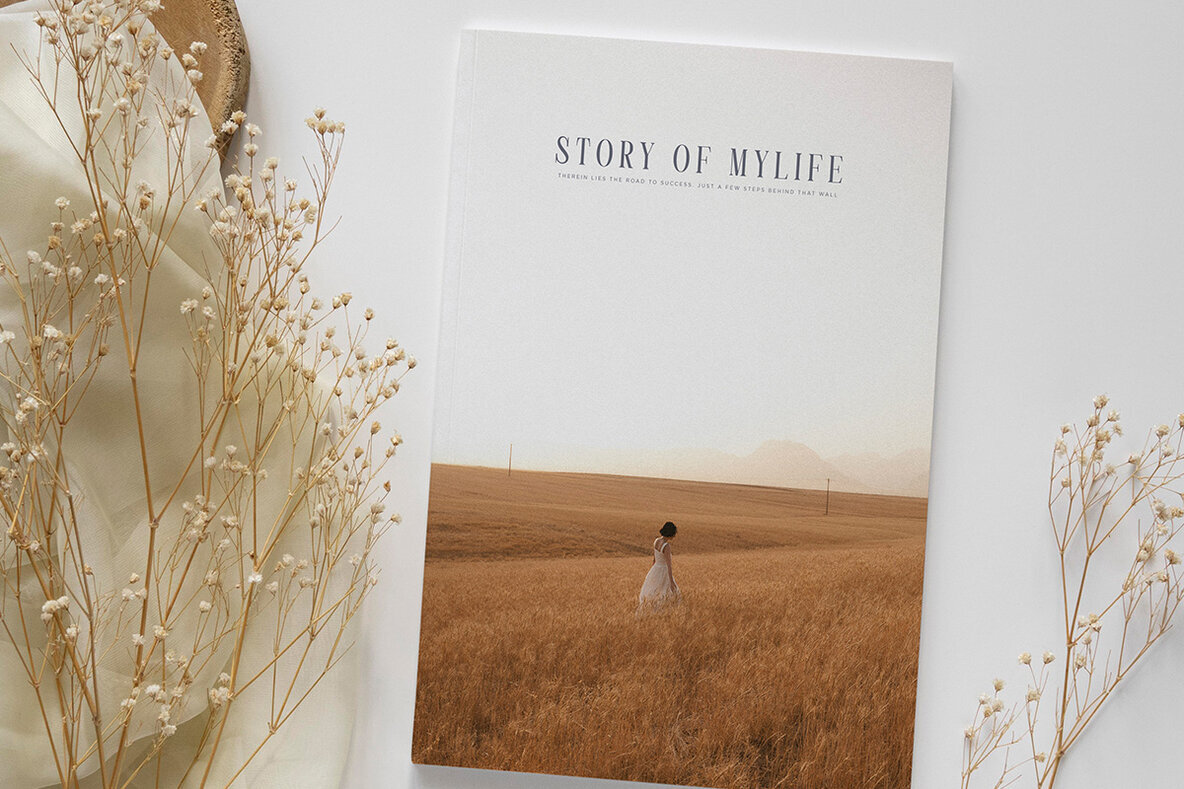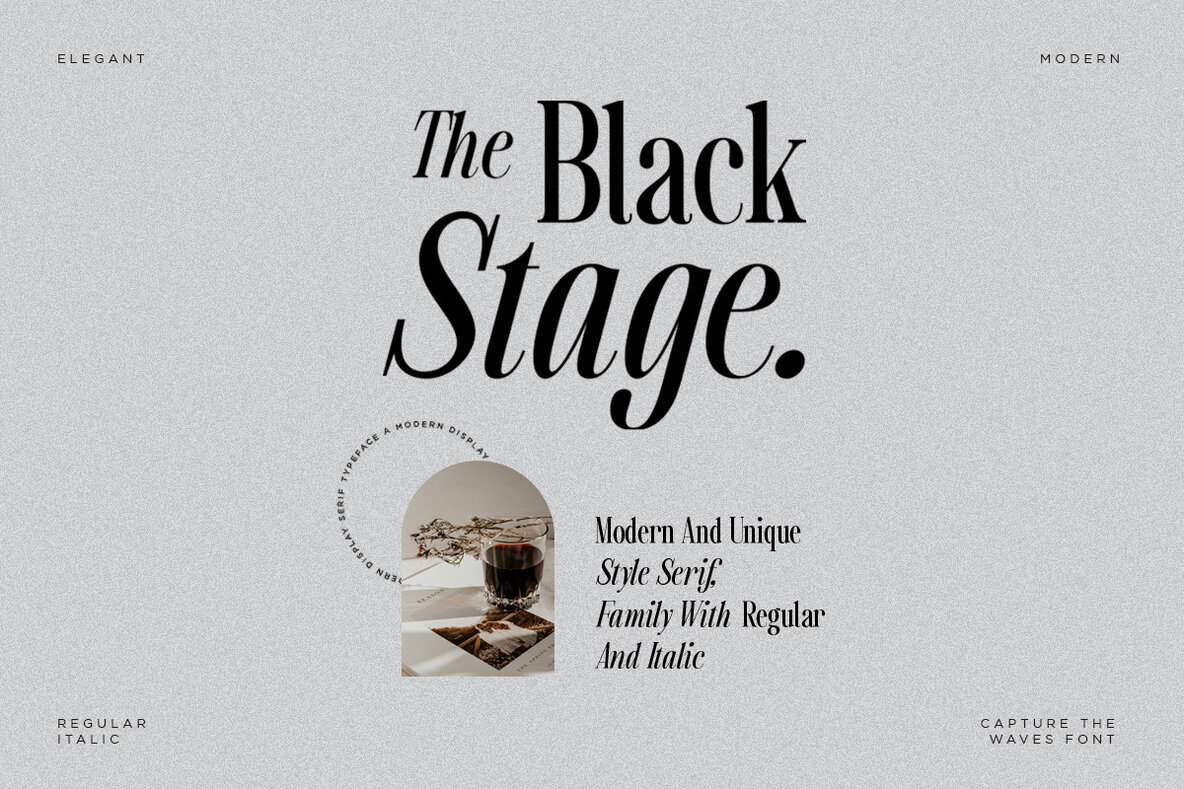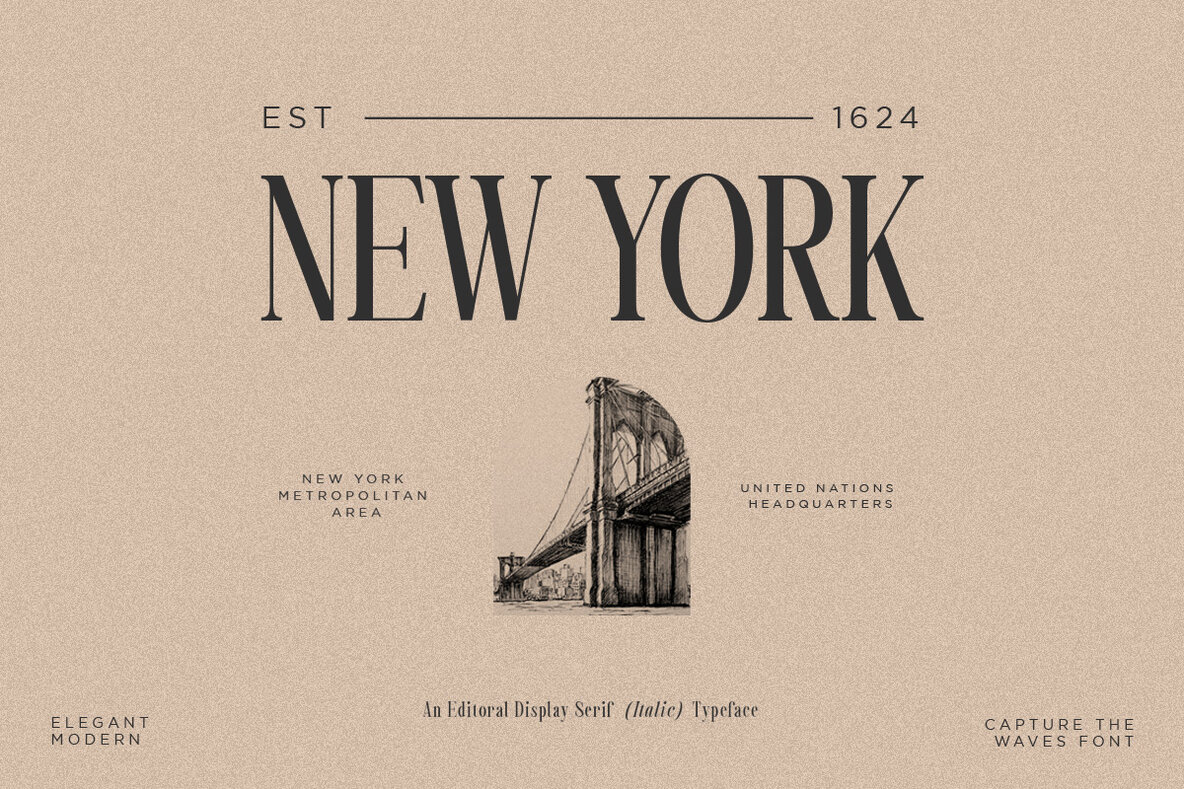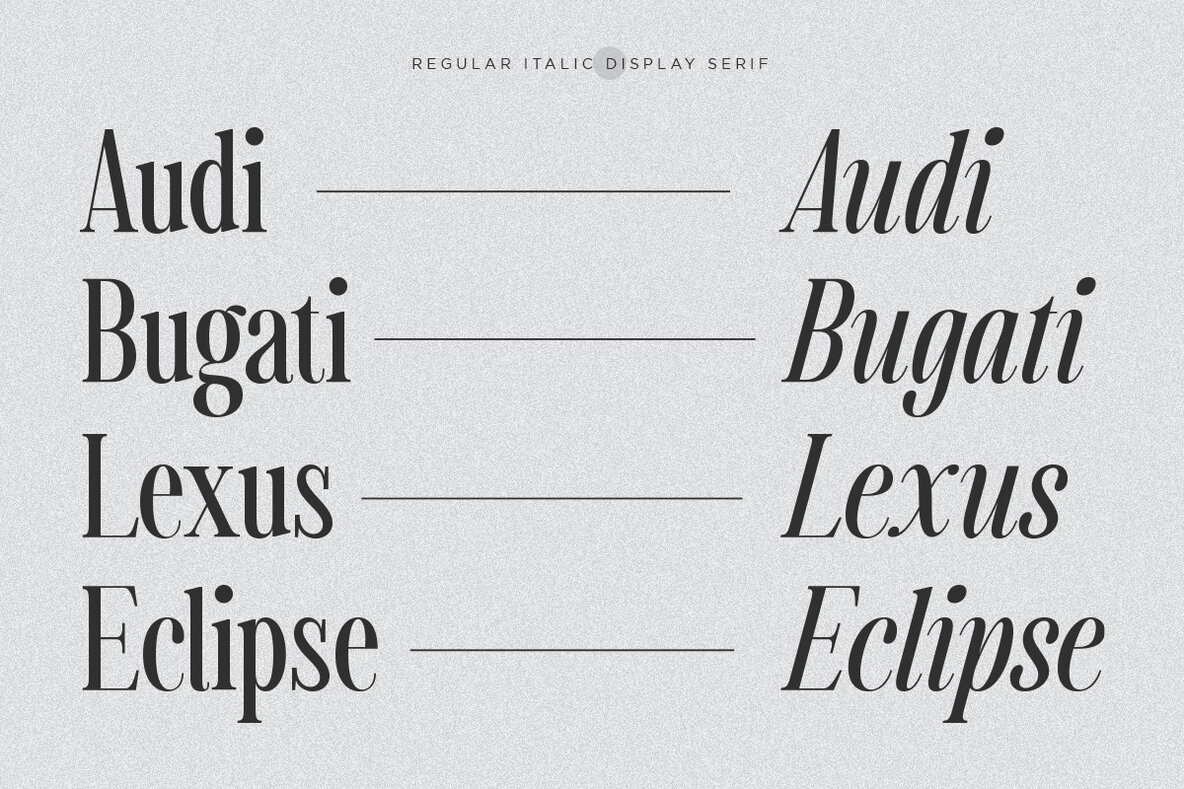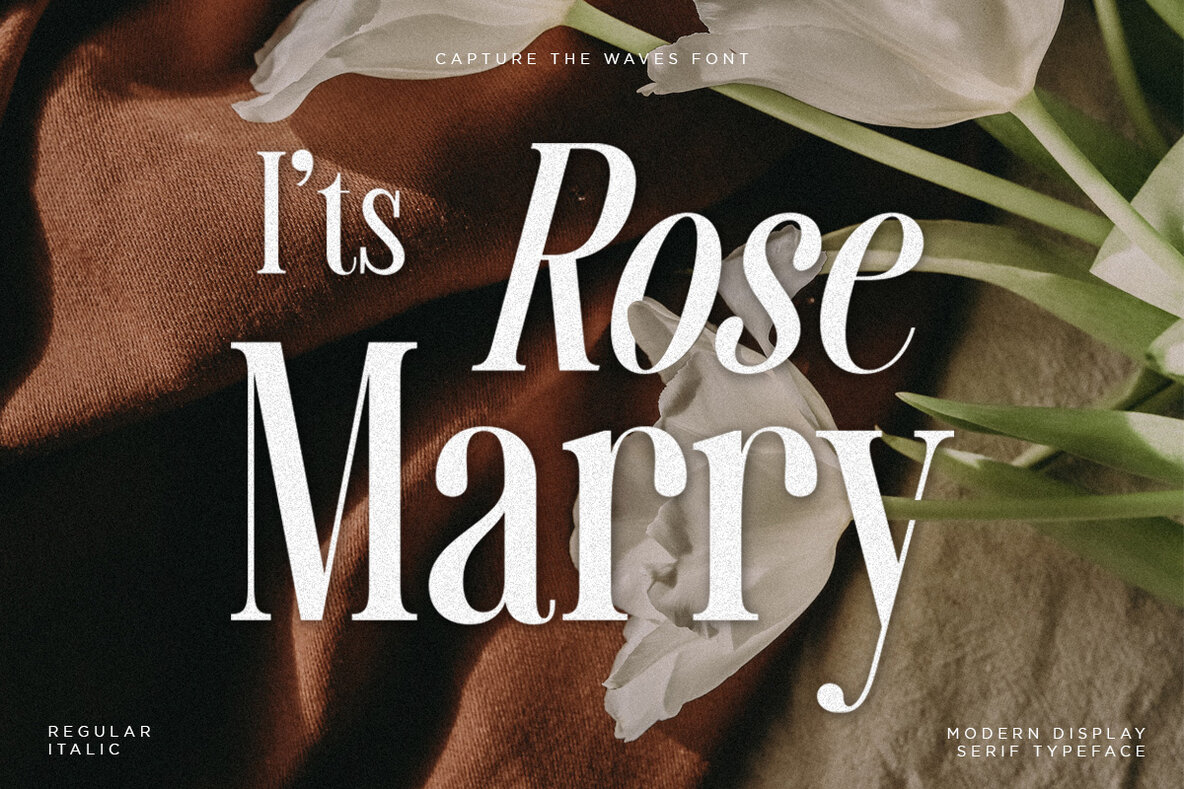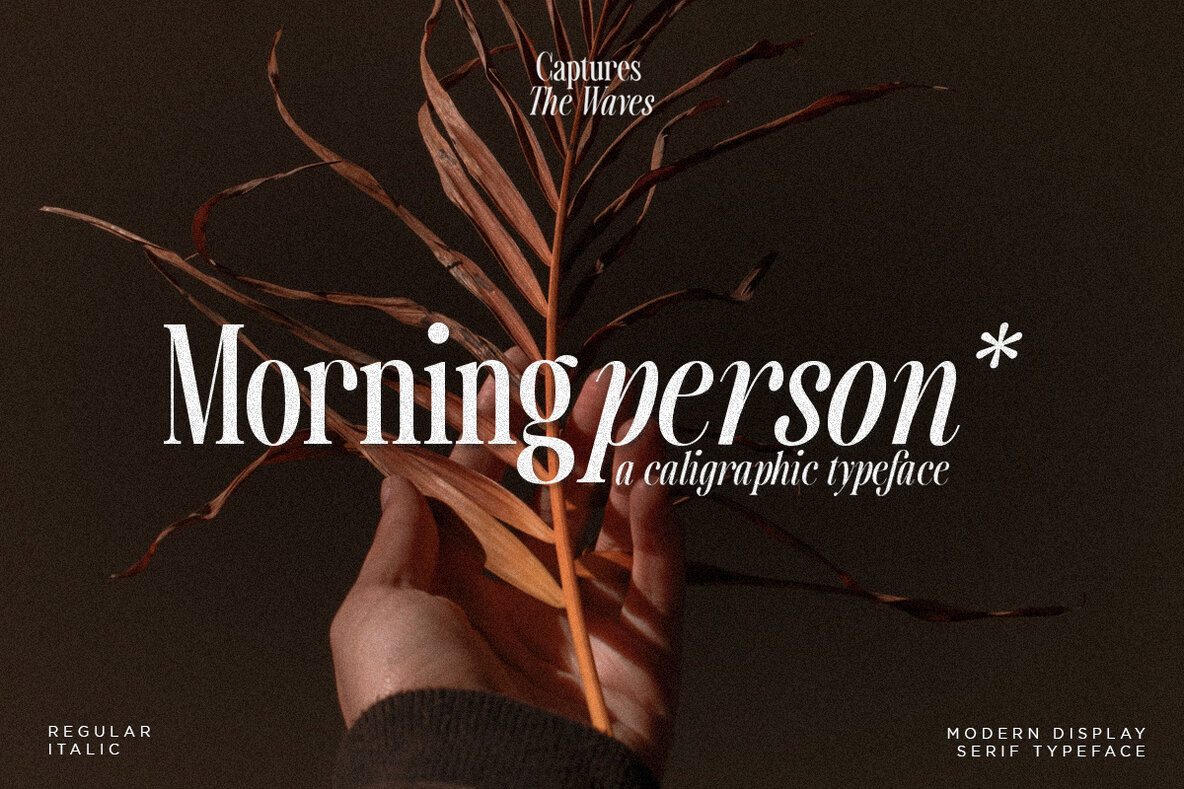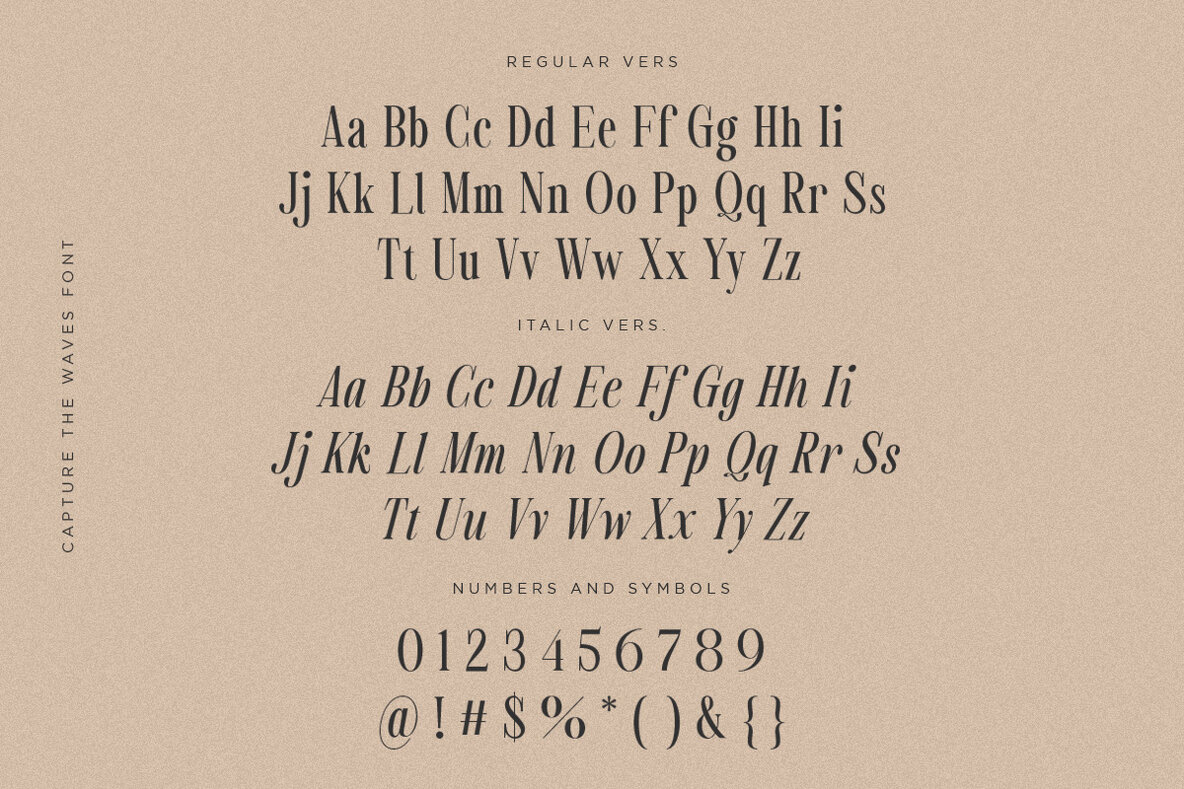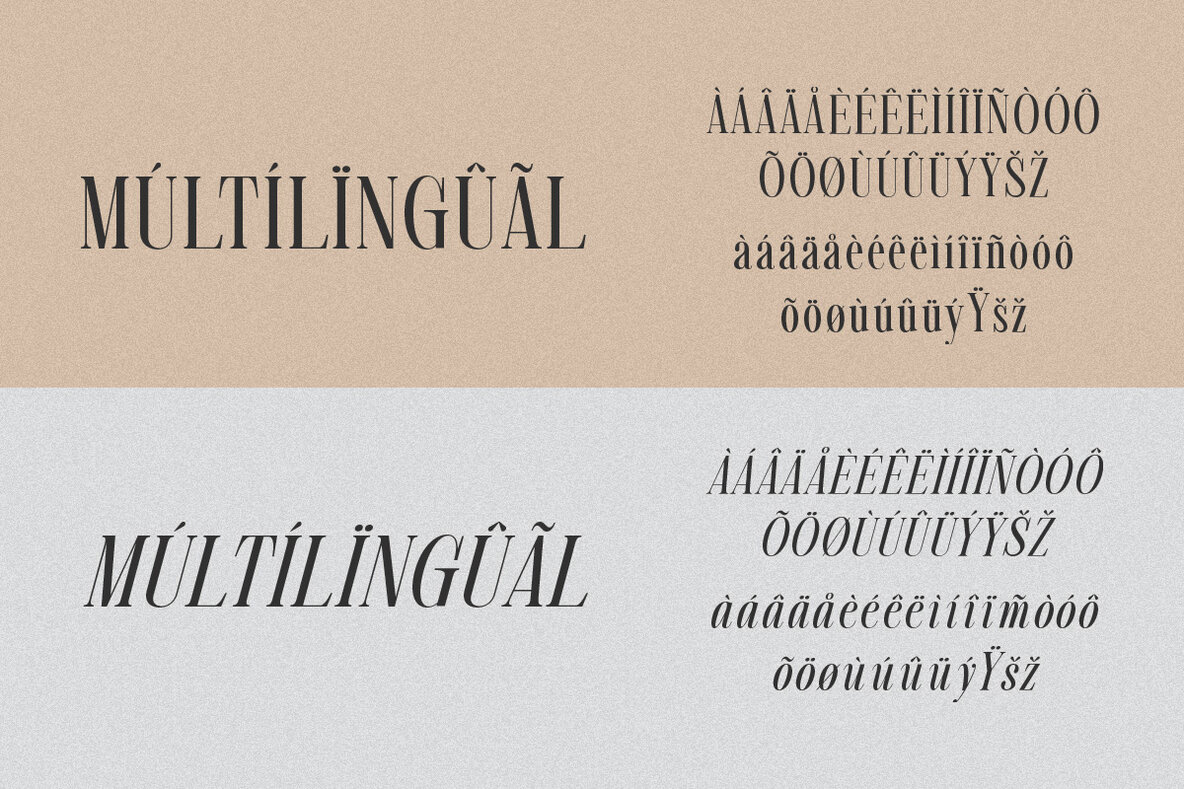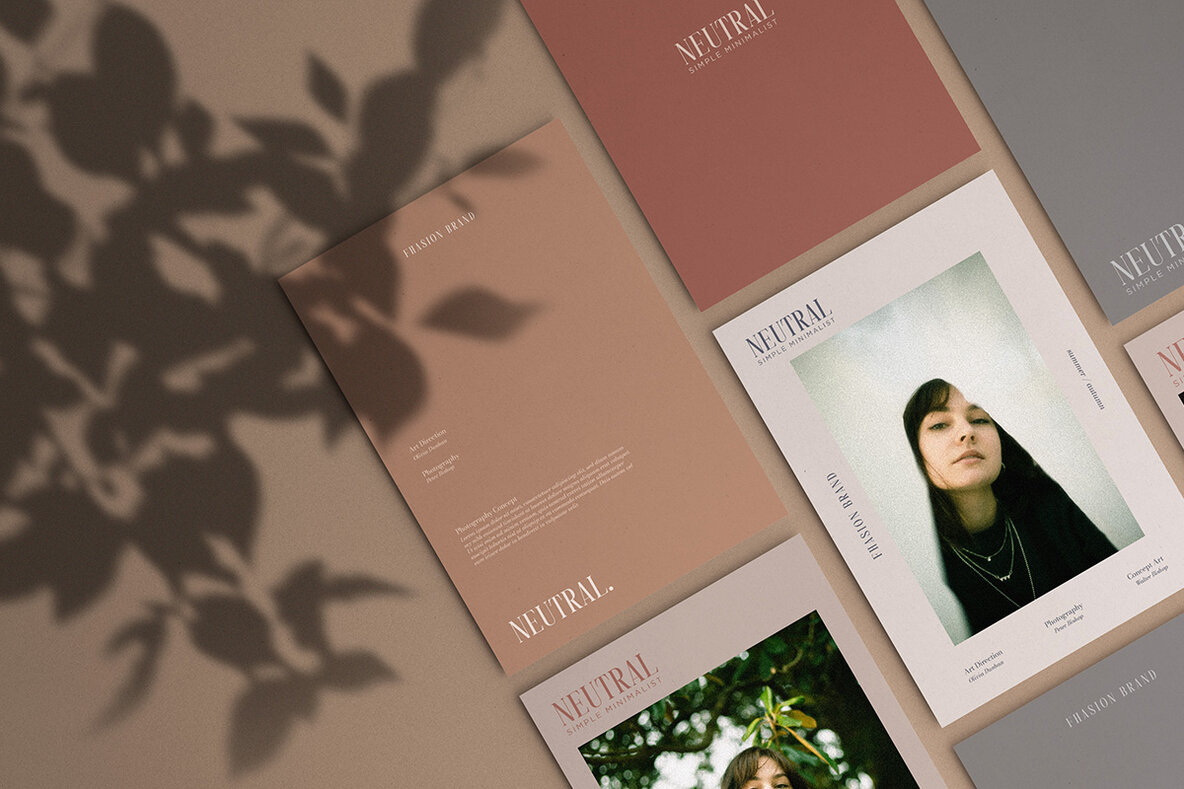
Captures The Waves Font
Capture The Waves regular
Capture The Waves Italic
Captures The Waves is a sophisticated display serif font by Pentagonistudio, designed to infuse a sense of luxury and refinement into your work. This typeface stands out with its carefully crafted ligature characters, making it ideal for projects that require elegance, whether in digital design or printed material. Features: Captures The Waves does not require special software, allowing seamless use in standard programs and website applications. Stay updated by following the designer's shop for announcements on future enhancements, like additional glyphs or language support.Captures The Waves: Modern Display Serif Inspired by Luxury